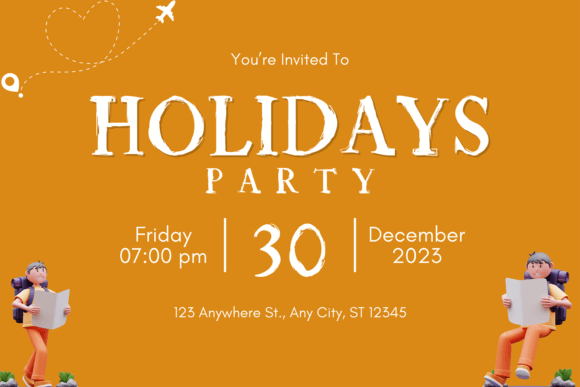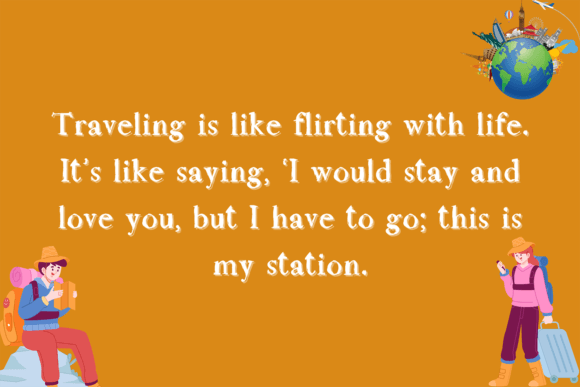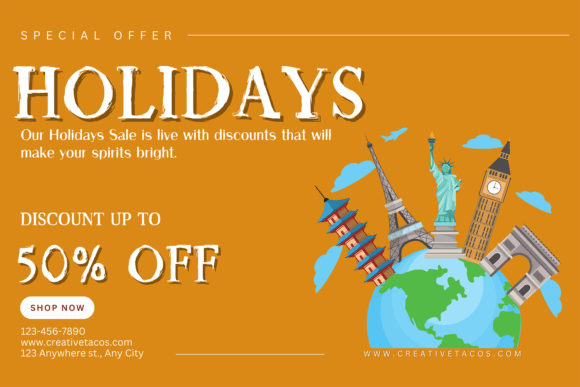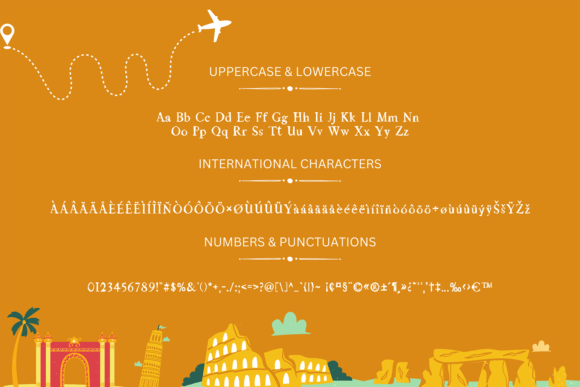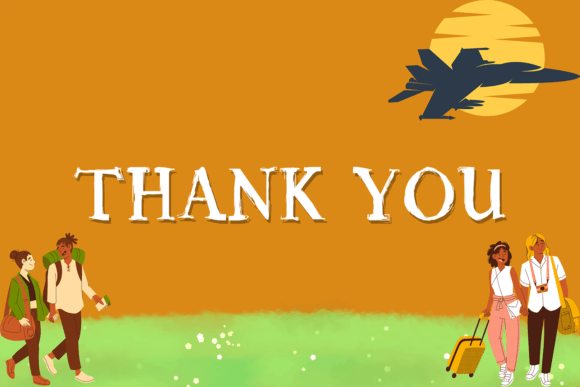
The Perfect Font for Your Holiday Masterpiece
As the holiday season approaches, you find yourself rummaging through your design files, searching for the perfect font to bring your festive project to life. You’ve got the colors, the graphics, and the ideas, but something’s missing – that special touch that sets your design apart from the rest. This is where the magic of the Daduidog Font comes in – a unique and creative font that adds a touch of elegance and whimsy to your holiday-themed projects.
With its rustic charm and Latin extended character support, the Daduidog Font is the perfect tool for designers looking to capture the spirit of joy and celebration. Whether you’re creating stunning holiday invitations, packaging designs, or website content, this versatile font is sure to elevate your work and make it stand out from the crowd.
Daduidog Font Key Features
- Unique Characteristics: Daduidog Font features a unique, modern design with a mix of rounded and geometric shapes, making it ideal for use in branding, packaging, and digital design.
- Weight and Style: Daduidog Font is available in a range of weights and styles, including Light, Regular, Medium, Bold, and Black, allowing designers to choose the perfect look for their project.
Daduidog Font Review
I recently had the chance to work with the Daduidog font, and I’m here to share my honest thoughts. Overall, I’d say it’s a solid choice for designers looking for a unique, playful font.
- Unique Character Set**: Daduidog offers a wide range of characters, including some quirky and fun symbols that can add a lot of personality to your design.
- Legibility**: Despite its playful nature, Daduidog is surprisingly easy to read, even at smaller font sizes.
- Customization Options**: The font includes a range of OpenType features, allowing you to customize its behavior and make it even more unique.
- Weight Variations**: While Daduidog offers a range of weights, the lighter weights can feel a bit thin and may not be suitable for all designs.
- Lack of italics**: Unfortunately, Daduidog doesn’t include italics, which can limit its use in certain situations.
Overall, I think Daduidog is a great choice for designers looking for a fun, unique font. While it may not be perfect, its strengths outweigh its limitations, and I’d definitely consider using it in future projects.
Some tips for getting the most out of the Daduidog font include:
– Using it for titles and headings to add a touch of elegance.
– Combining it with other fonts for a unique and creative look.
– Experimenting with different font sizes and styles to create visual interest.
Common use cases for the Daduidog font include:
– Wedding invitations and stationery.
– Branding and marketing materials.
– Artistic and creative projects.